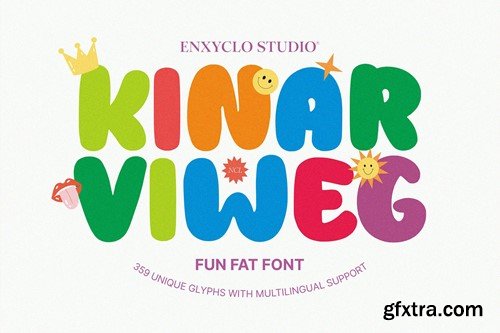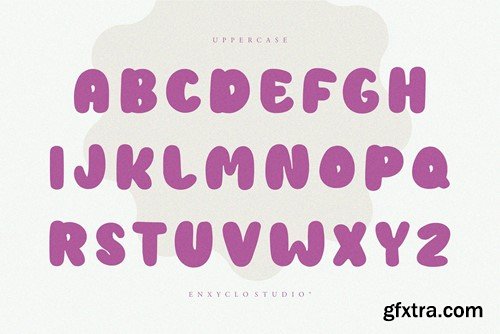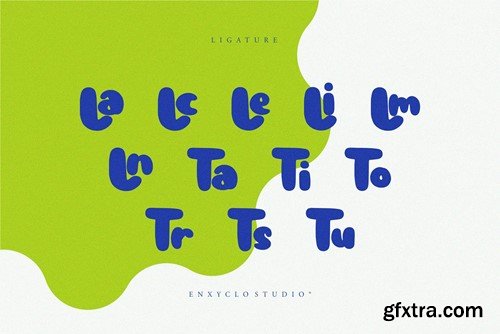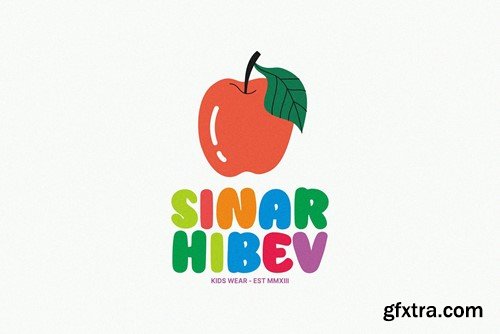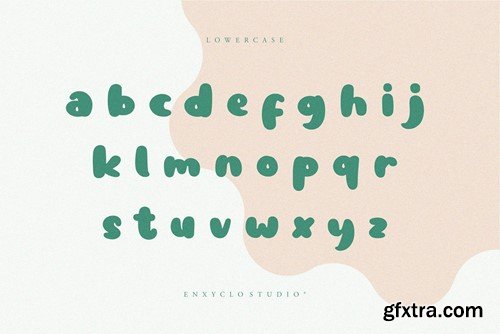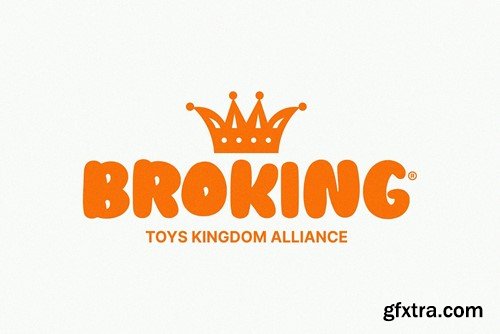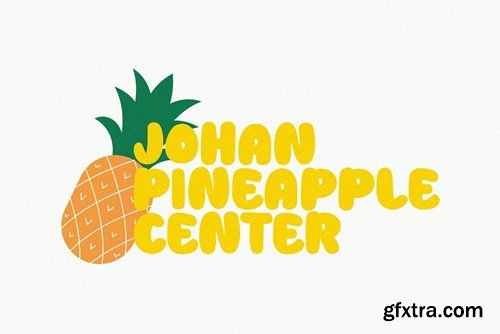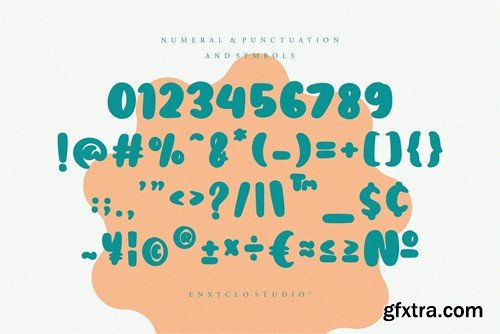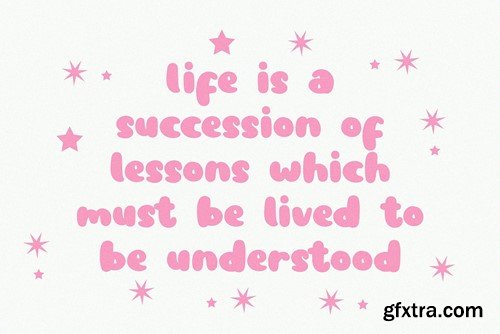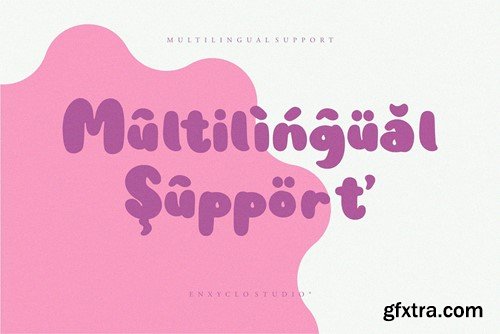
NCL Kinar Viweg - Fun Fat Handwritten Font UB34VDD
NCL Kinar Viweg - Fun Fat Handwritten Font
NCL Kinar Viweg is a fun fat handwritten display font. Masterfully designed to become a true favorite, this font has the potential to bring each of your creative ideas to the highest level! It was purposely crafted to be used in large point sizes, although it doesn’t lose its magic in small point sizes. It is perfect for headline, digital ads, magazines, website, poster, branding, and logos. No matter the topic, this font will be an incredible asset to your fonts’ library, as it has the potential to elevate any creation. With this beautiful font, absolutely you can make your project stand out from the rest.
• 359 Unique Glyphs
• 12 Ligature
• Uppercase & Lowercase
• Numeral, Punctuation & Symbols
• Multilingual Support